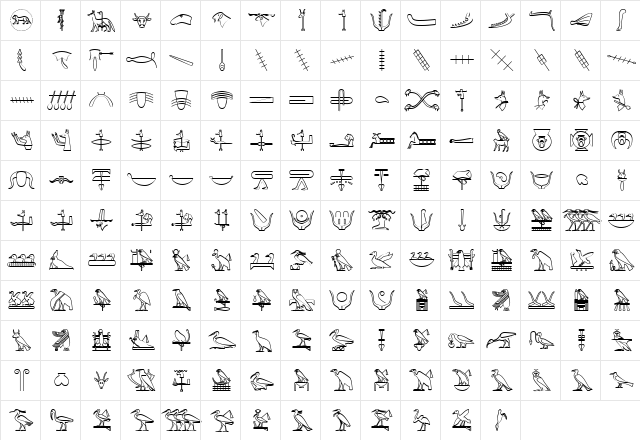
GlyphExtLibW Medium
Design Context for GlyphExtLibW Typeface
GlyphExtLibW takes a measured approach to typography — its balanced proportions and neutral character make it a reliable workhorse for both digital and print work.